Choosing fonts always starts with a feeling.
Sometimes you know exactly what you’re after. A clean sans that gets out of the way. A serif with a bit of warmth. A mono that feels technical but not cold. Other times you just want to scroll, look, and let something click.
Either way, it helps to have a solid selection of fonts you can quickly move through to find the right match in seconds, so you can get back to the actual design work.
Below are 50 Google Fonts that feel especially relevant going into 2026. Not because they’re new or trying to be loud, but because they hold up. They work across real projects and real constraints. Websites, editorial layouts, business cards, stickers, books, and marketing materials where the choice of type really matters.
Think of this as a reference you can return to. When a project needs a reliable free font and you don’t want to start from scratch, this list is meant to get you moving again, fast.
Figtree
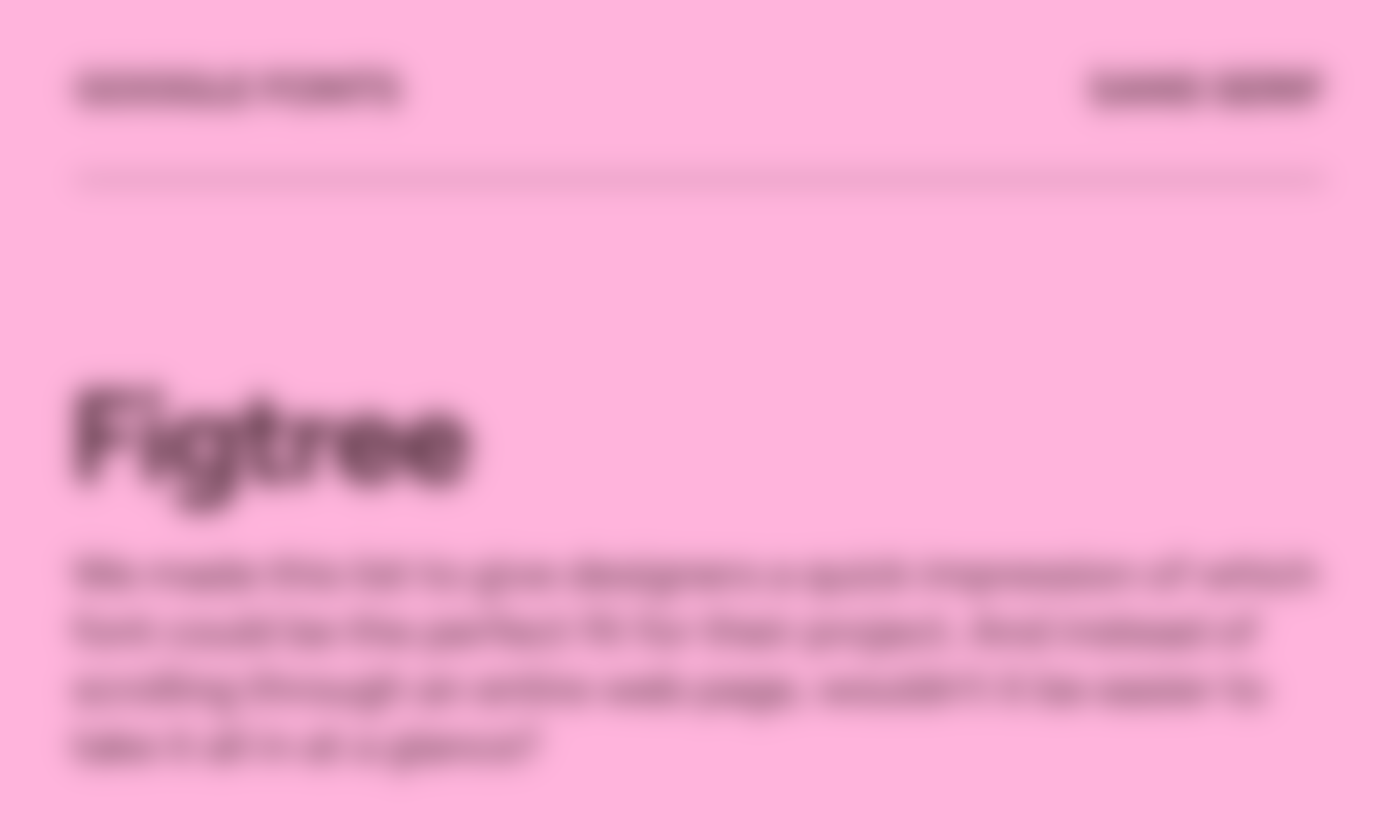
Figtree is a sans serif typeface by Erik Kennedy, available in 14 styles, including a variable version.
Google Sans
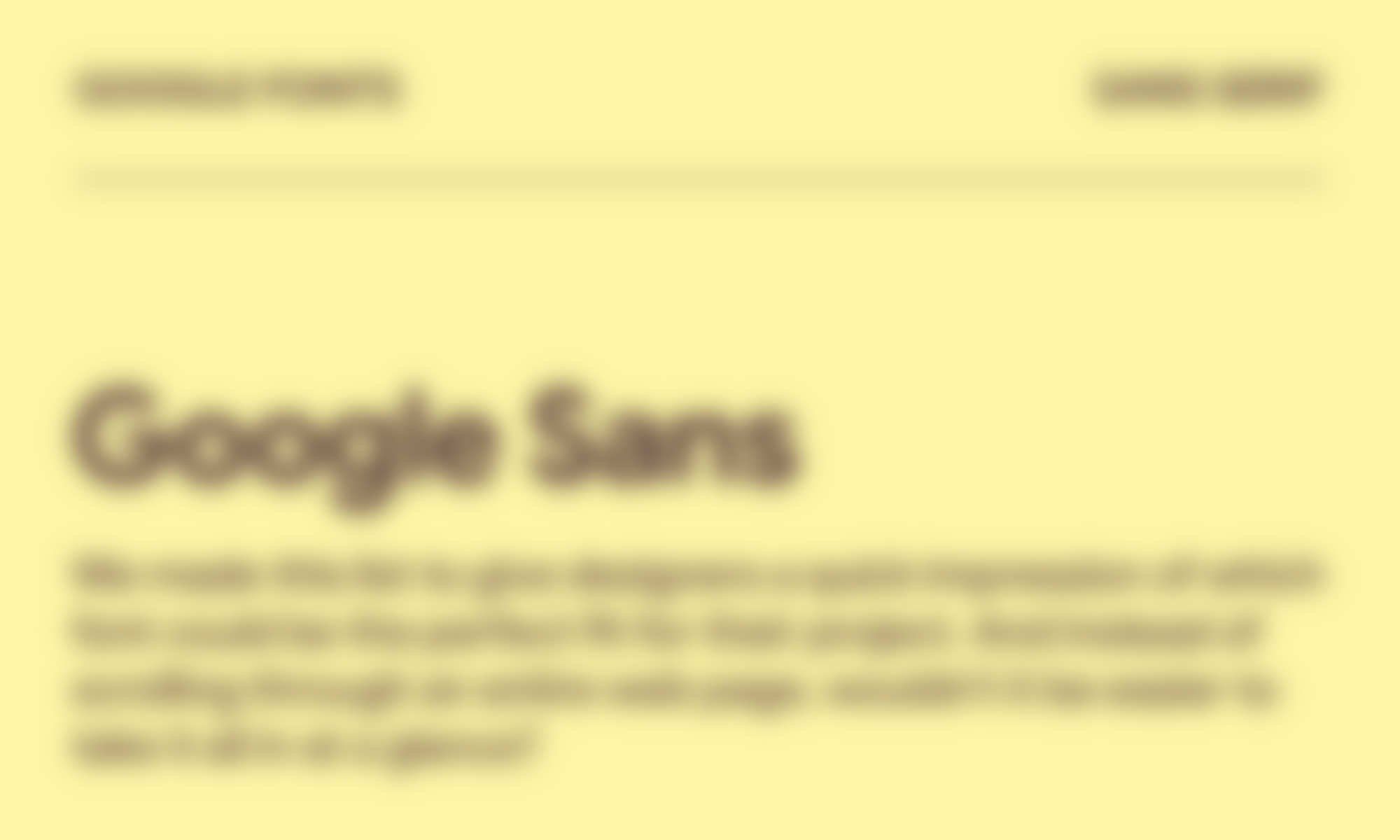
Google Sans is a sans serif typeface by Google, available in 8 styles, including a variable version.
DM Sans
DM Sans is a sans serif typeface by Colophon Foundry, available in 18 styles, including a variable version.
Instrument Serif
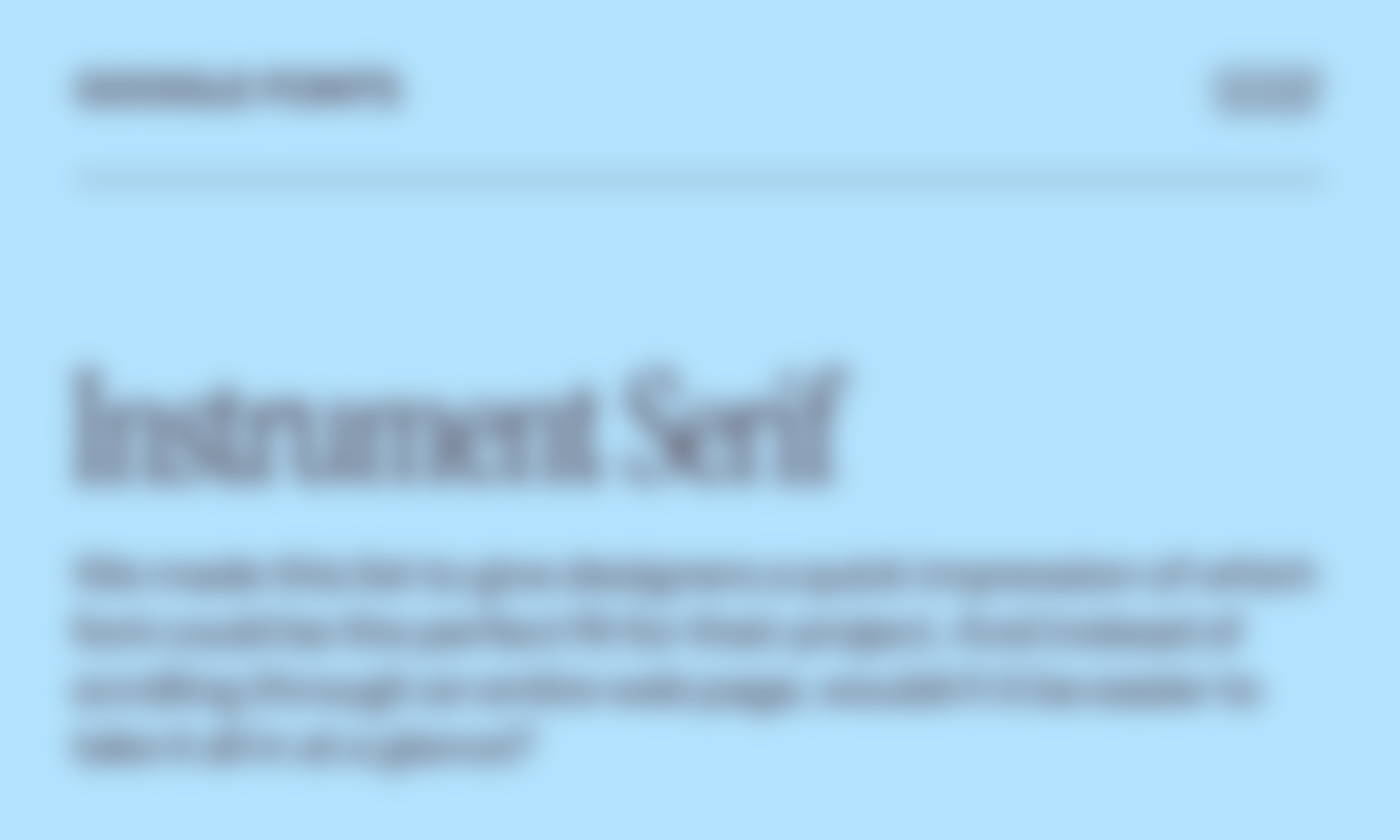
Instrument Serif is a serif typeface by Rodrigo Fuenzalida and Jordan Egstad, available in 2 styles.
Bricolage Grotesque
Bricolage Grotesque is a sans serif typeface by Mathieu Triay, available in 7 styles, including a variable version.
Outfit
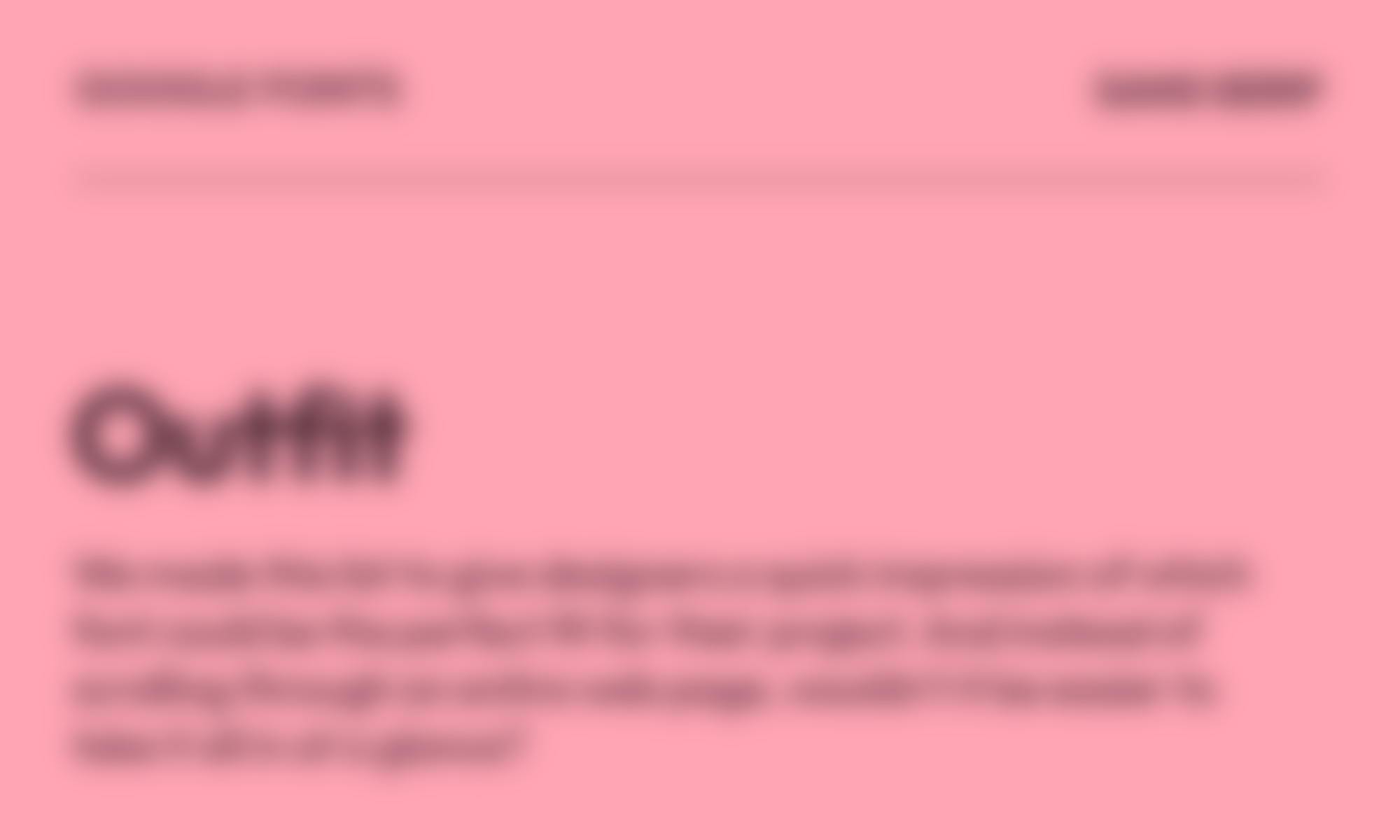
Outfit is a sans serif typeface by Smartsheet Inc. and Rodrigo Fuenzalida, available in 9 styles, including a variable version.
Newsreader
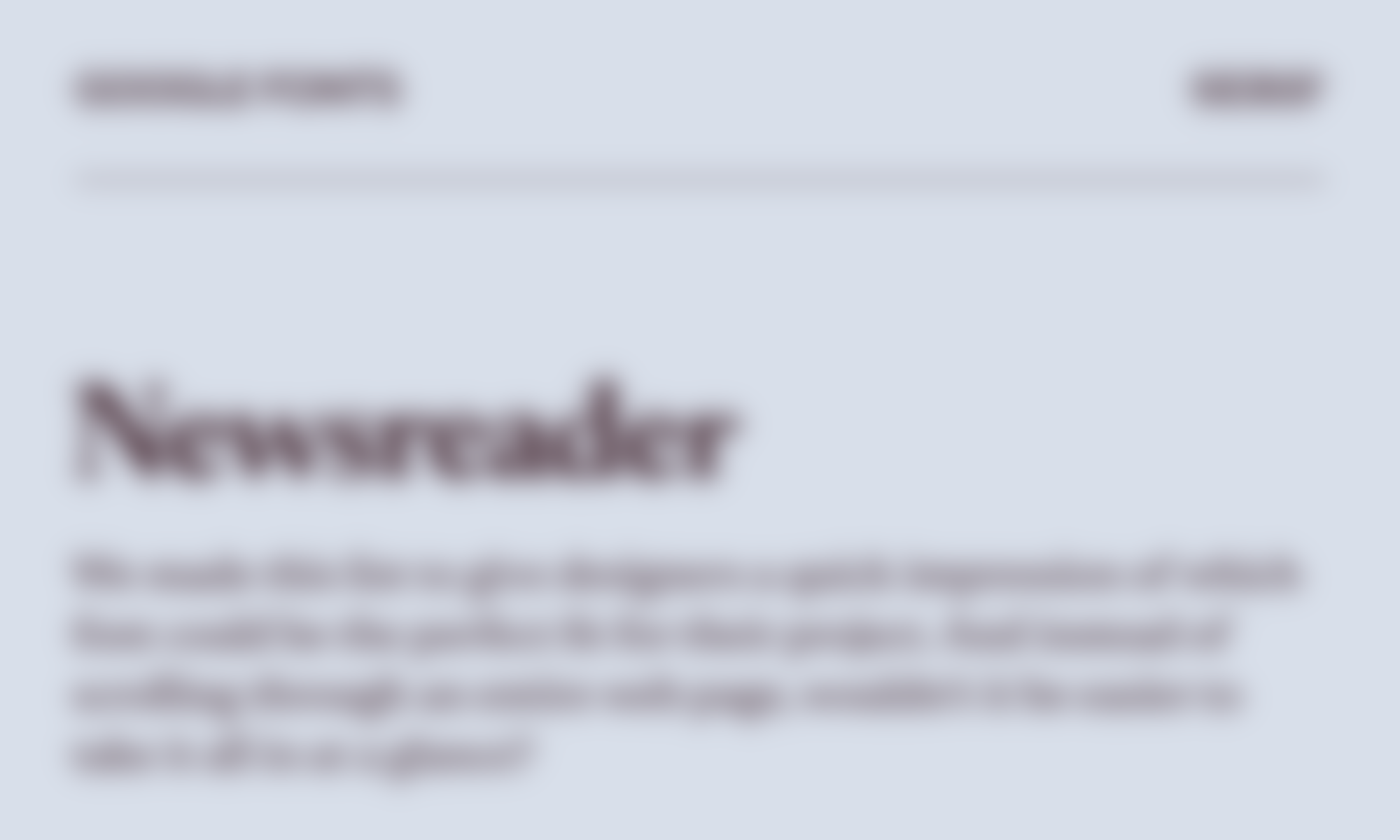
Newsreader is a serif typeface by Production Type, available in 14 styles, including a variable version.
Geist Mono
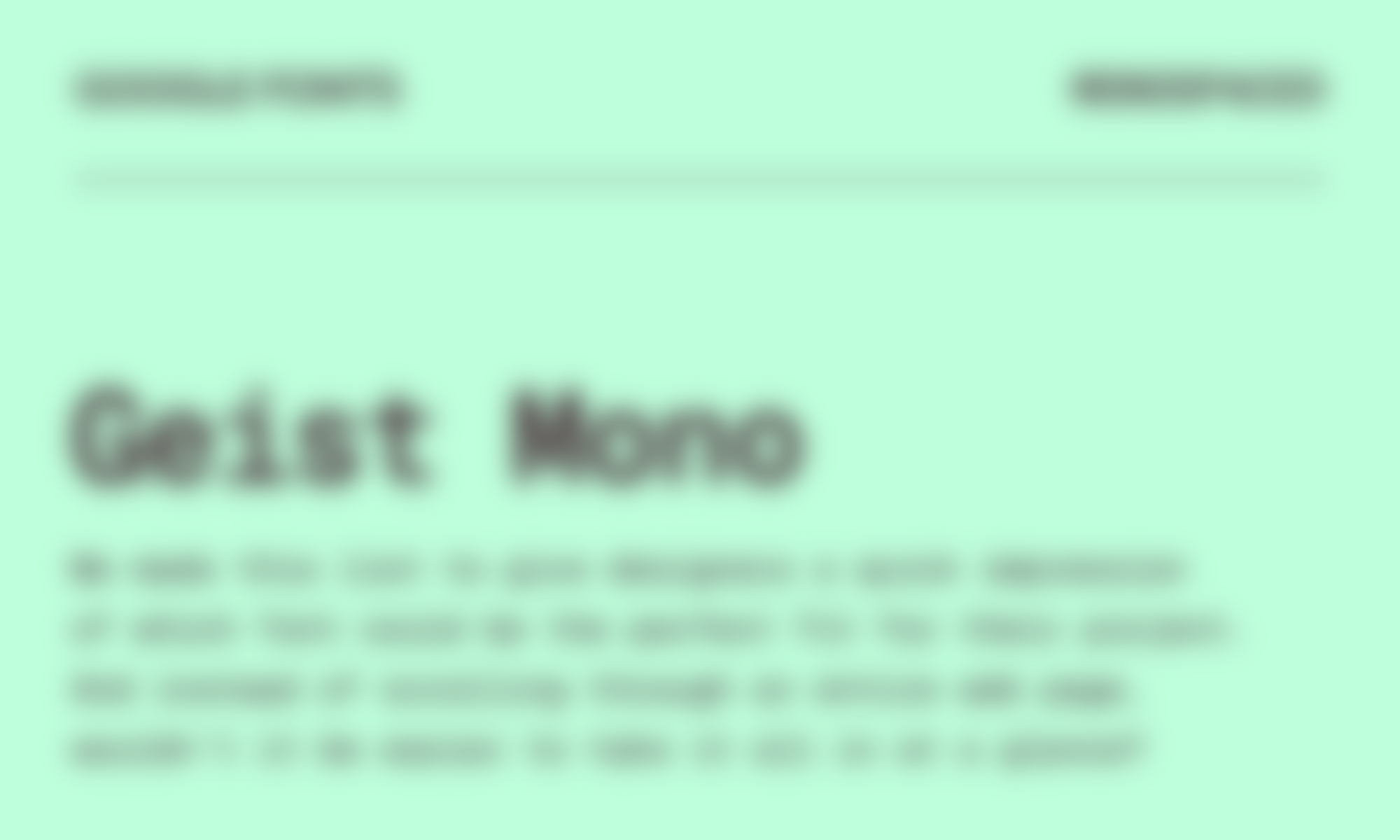
Geist Mono is a monospaced typeface by Vercel, available in 9 styles, including a variable version.
Zalando Sans
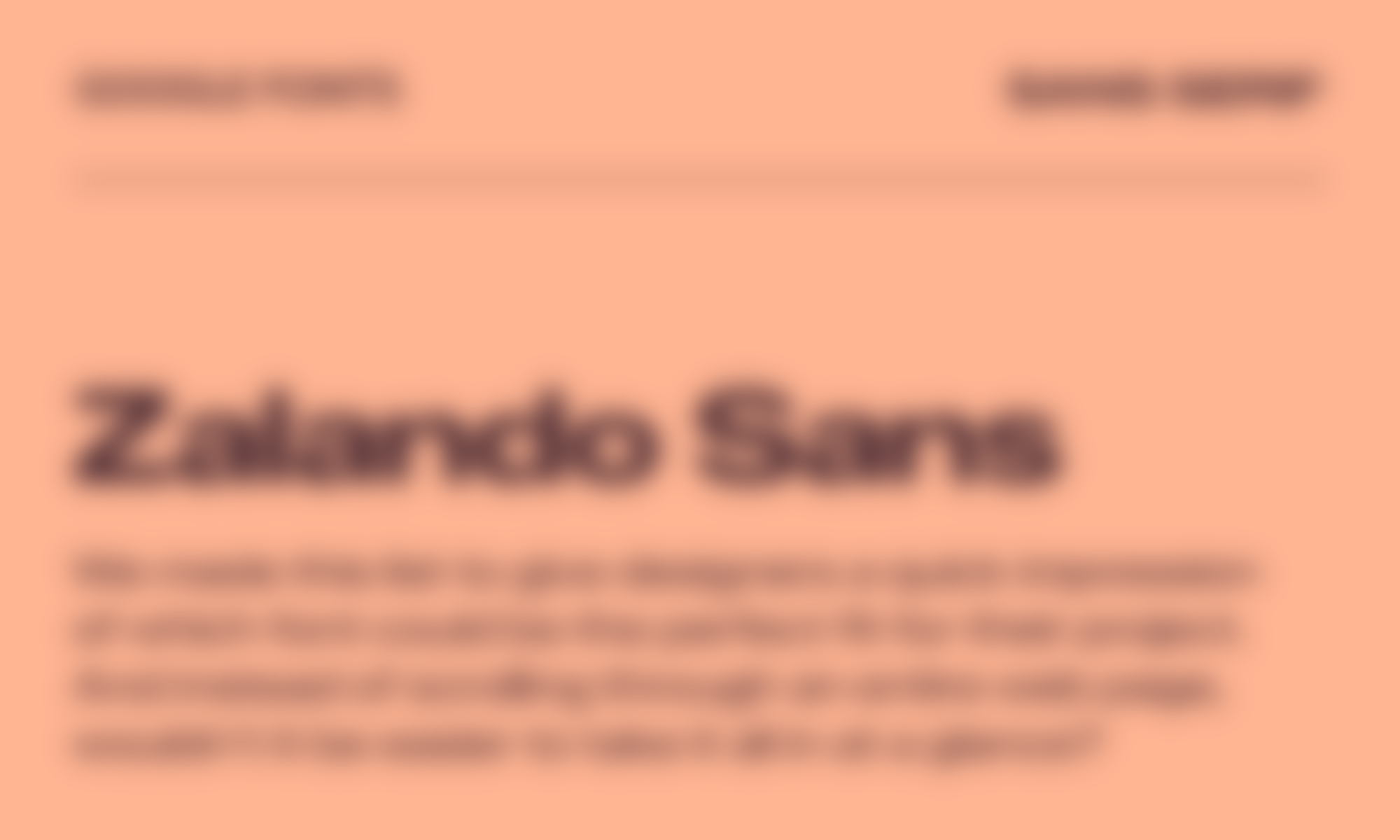
Zalando Sans is a sans serif typeface by Jakob Ekelund, KH Type, and Zalando, available in 16 styles, including a variable version.
Geom
Geom is a sans serif typeface by Thanos Poulakidas, available in 14 styles, including a variable version.
Marcellus
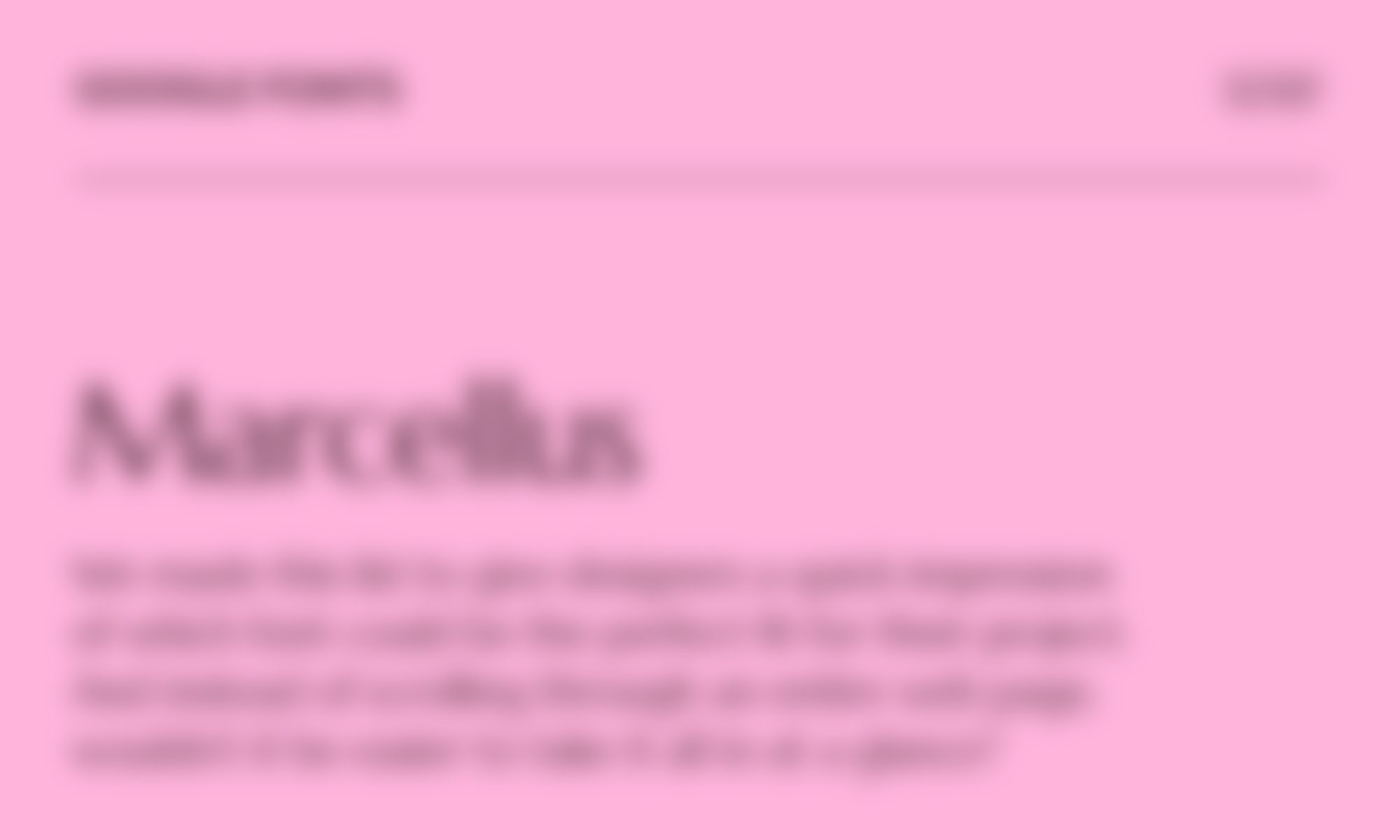
Marcellus is a serif typeface by Astigmatic, available in 1 style.
Unbounded
Unbounded is a sans serif typeface by NaN, available in 9 styles, including a variable version.
IBM Plex Sans
IBM Plex Sans is a sans serif typeface by Mike Abbink and Bold Monday, available in 14 styles, including a variable version.
Work Sans
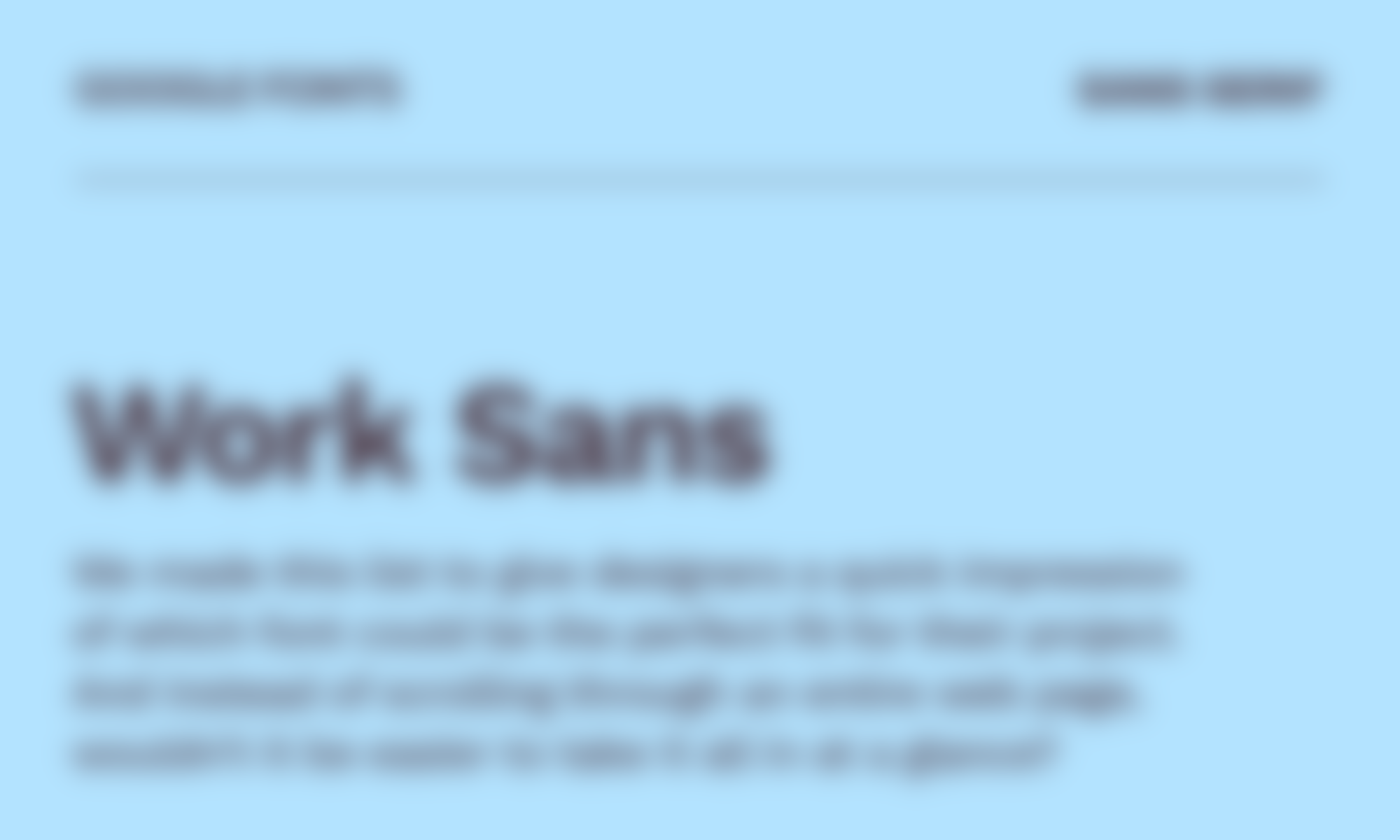
Work Sans is a sans serif typeface by Wei Huang, available in 18 styles, including a variable version.
Libre Baskerville
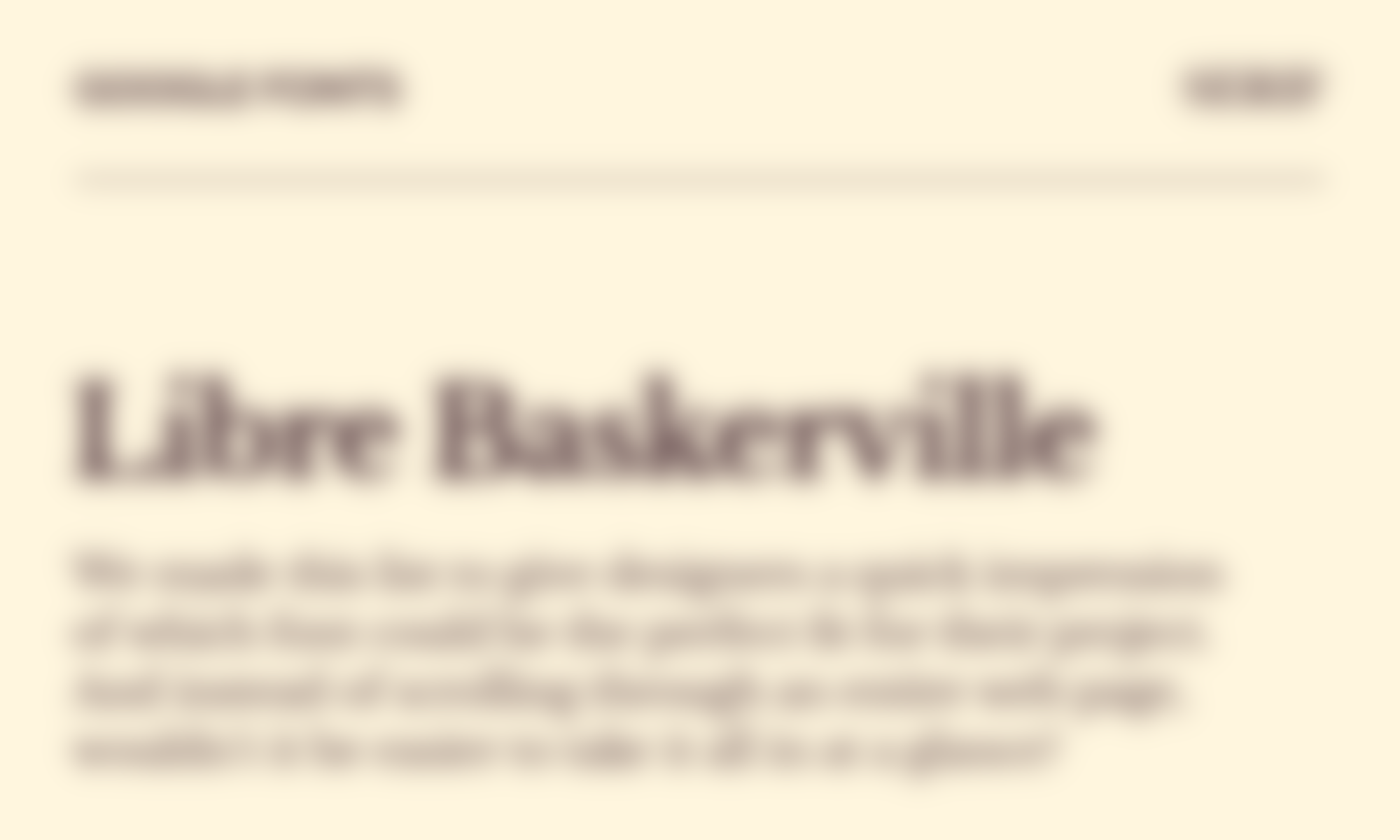
Libre Baskerville is a serif typeface by Impallari Type, available in 8 styles, including a variable version.
Space Grotesk
Space Grotesk is a sans serif typeface by Florian Karsten, available in 5 styles, including a variable version.
Syne
Syne is a sans serif typeface by Bonjour Monde, Lucas Descroix, and George Triantafyllakos, available in 5 styles, including a variable version.
Instrument Sans
Instrument Sans is a sans serif typeface by Rodrigo Fuenzalida and Jordan Egstad, available in 8 styles, including a variable version.
Urbanist
Urbanist is a sans serif typeface by Corey Hu, available in 18 styles, including a variable version.
EB Garamond
EB Garamond is a serif typeface by Georg Duffner and Octavio Pardo, available in 10 styles, including a variable version.
Inter
Inter is a sans serif typeface by Rasmus Andersson, available in 18 styles, including a variable version.
Eczar
Eczar is a serif typeface by Rosetta and Vaibhav Singh, available in 5 styles, including a variable version.
BioRhyme
BioRhyme is a serif typeface by Aoife Mooney, available in 7 styles, including a variable version.
Poppins
Poppins is a sans serif typeface by Indian Type Foundry, available in 18 styles.
DM Serif Text